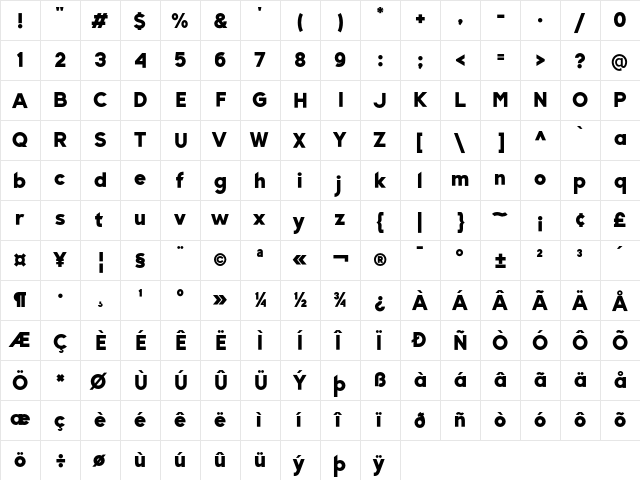
Slenco Black Regular
| Foundry | Patria Ari Typestudio |
| Designer | Patria Ari Wijonarko |
Design Context for Slenco Black Typeface
Slenco Black offers clean, dependable letterforms without strong stylistic allegiance, making it a practical choice for designers who need flexibility.
Pro Tip: Use Slenco Black in both headline and body roles to test its range before committing to a single application.